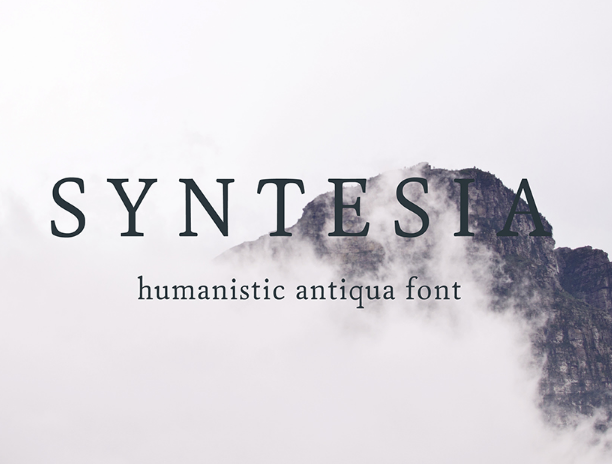
Syntesia Typeface
Continuation is a humanistic antiqua font. Introducing Syntesia Typeface! Syntesia was designed by Sascha Hermanns. A new creative typography, and completely free. Using it lends a humanistic touch to editorial or advertising work.